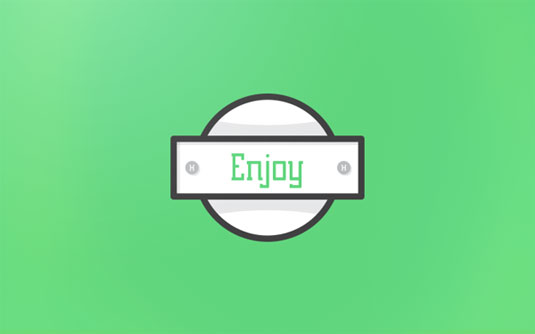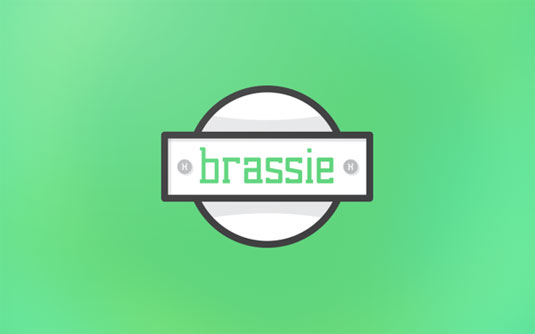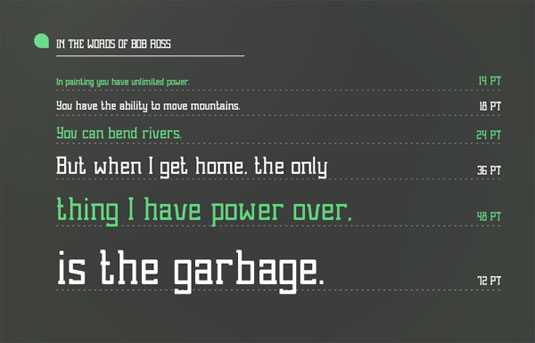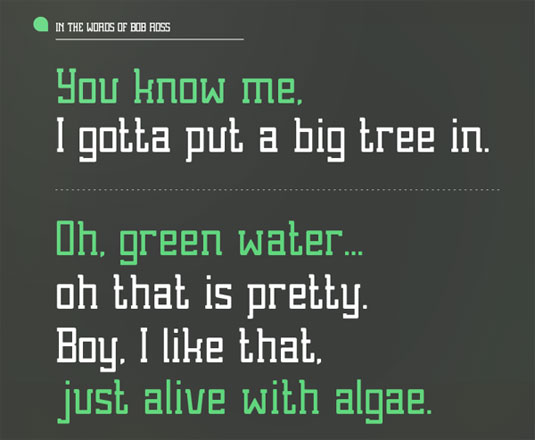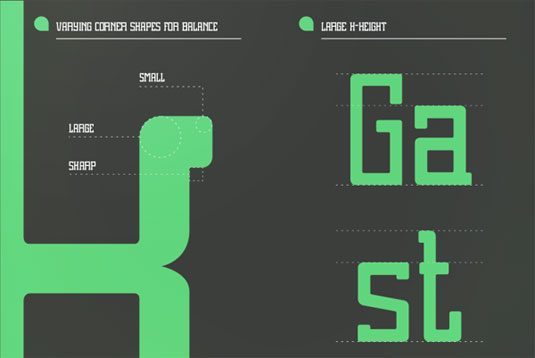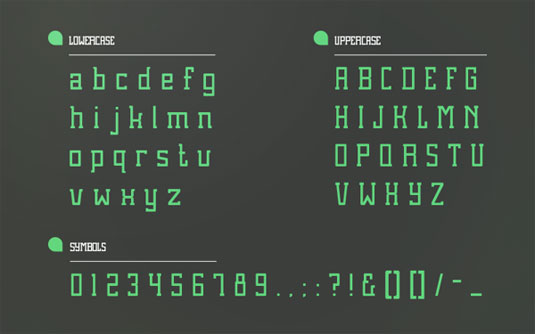
Font of the day: Brassie Regular
Brassie Regular by Ryan Welch
Brassie is a free weight from the font family 'Brassie', designed by Rochester based designer Ryan Welch. All three weights from the family will be released for purchase soon, but the regular weight will always remain free.
Welch has a knack for producing eye-catching fonts, and he's become a regular appearance with our font of the day picks. Brassie Regular will act as a perfect font for both headlines and content.